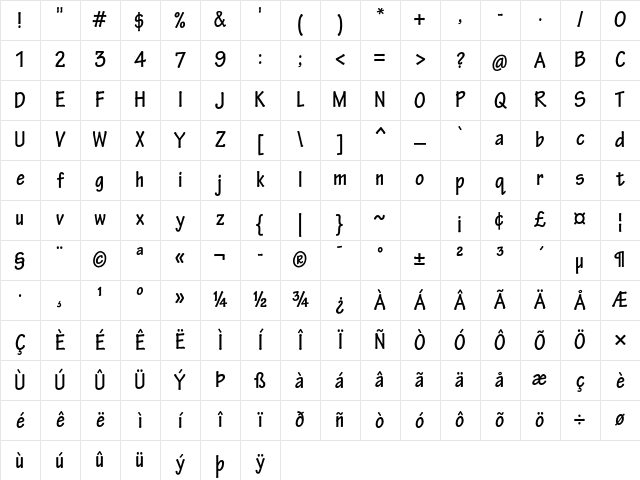
Tekton Pro Bold Condensed
Style: Bold Condensed
Designer: David Siegel
Design Context for Tekton Pro
Tekton Pro is a composed and adaptable typeface that performs quietly and consistently across a wide range of design contexts. Its bold stroke weight gives it real presence on the page. Its narrow stance lets it pack a punch even in space-constrained designs.